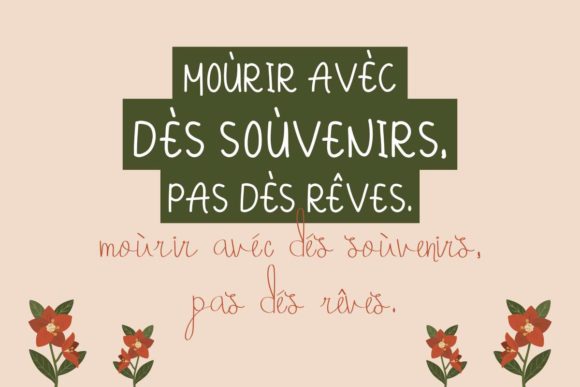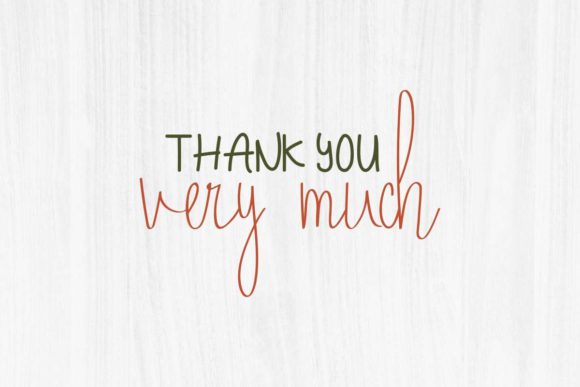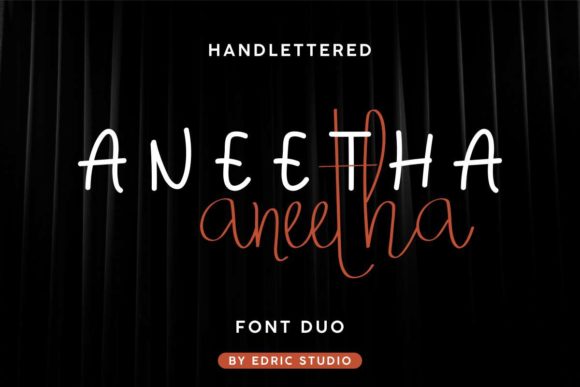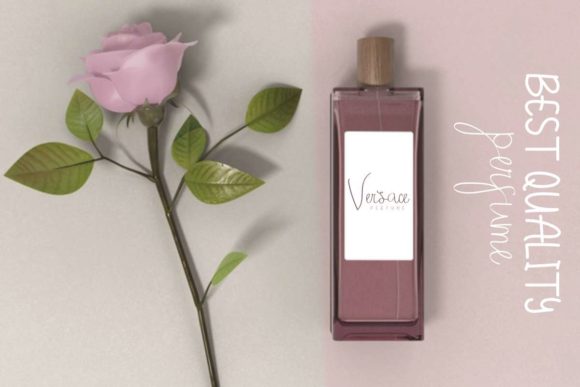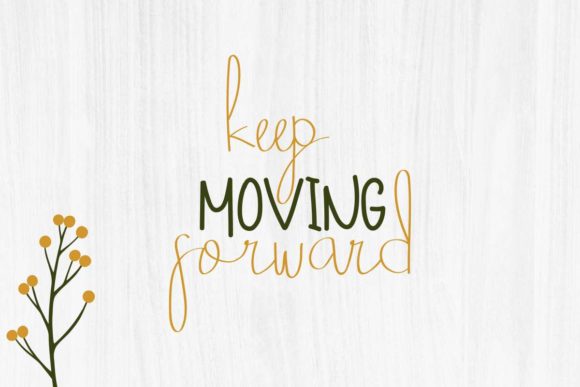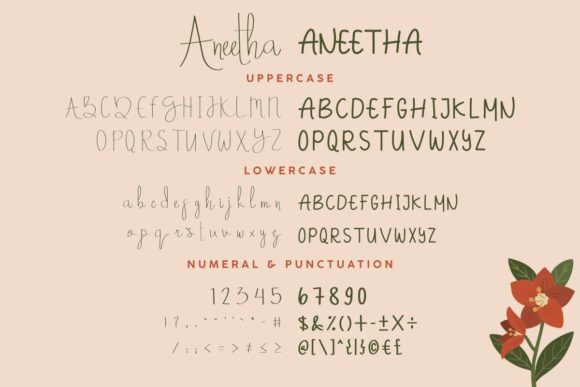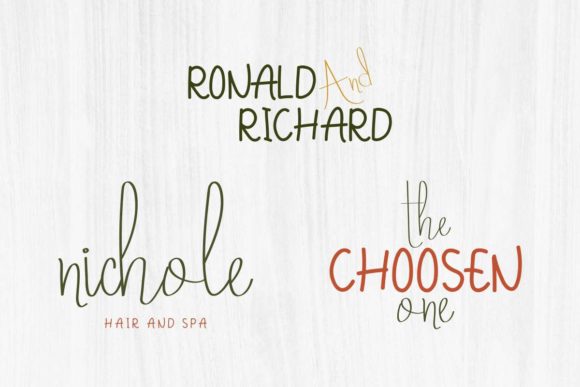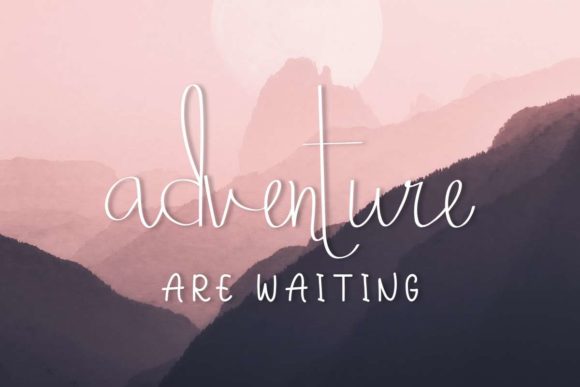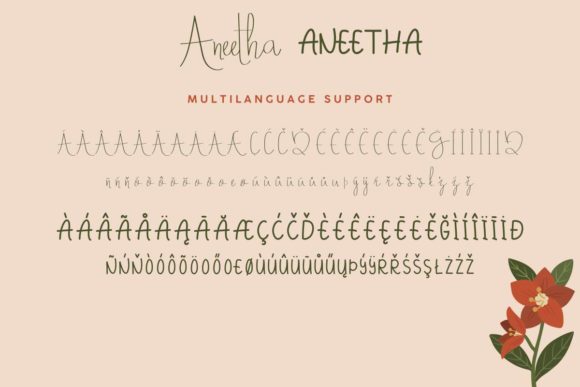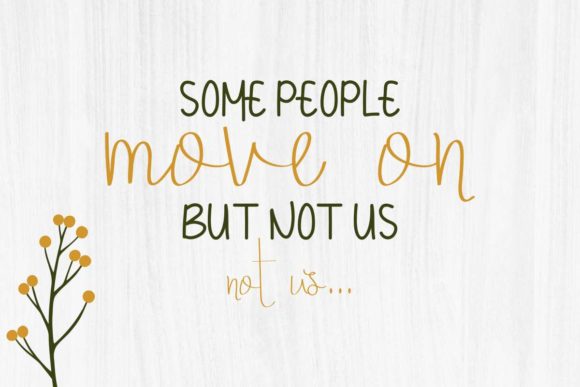
Aneetha Font
About Aneetha Font
Aneetha is a gorgeous font duo considering of a sans and script font. Combine these two stunners and achieve gorgeous results!